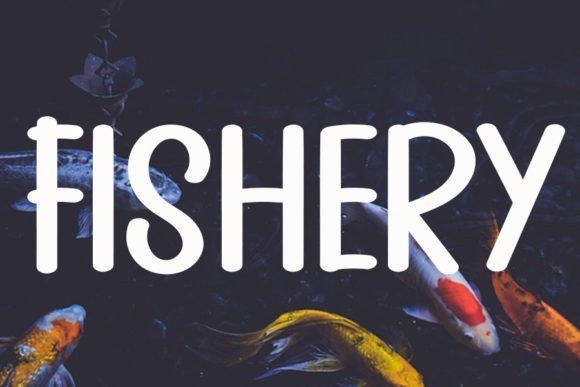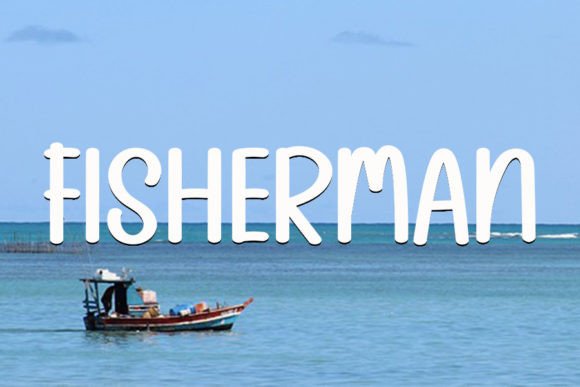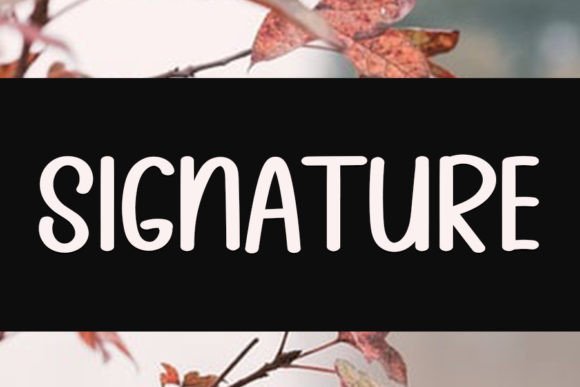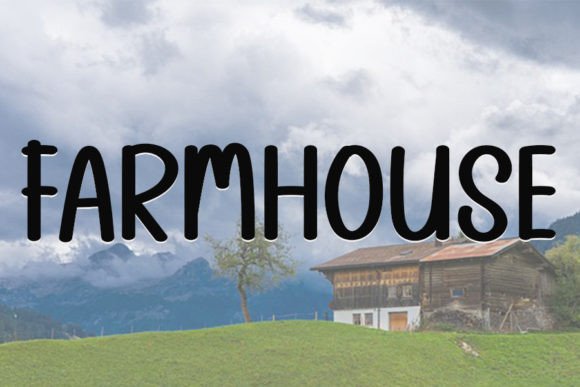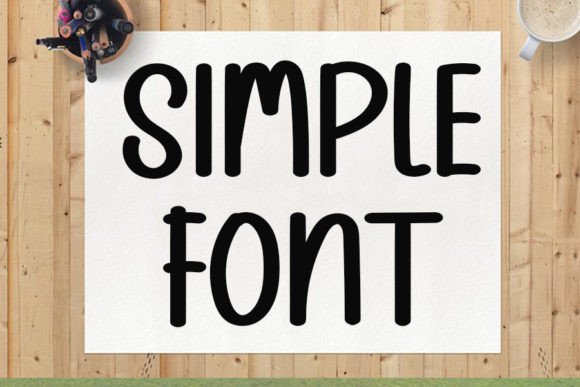
Hooked on the Perfect Font
There’s something magical about a well-designed project that makes you feel like you’re creating something truly special. The moment you click ‘save’ and step back to admire your handiwork, a sense of pride and satisfaction washes over you. But, let’s be honest, the right font can make all the difference.
That’s where Fishery Font comes in – a beautiful, modern handwritten font that’s perfect for adding a touch of elegance to your designs. With its spotless form and balanced lines, Fishery Font is designed to elevate your projects to the next level. Whether you’re a seasoned designer or just starting out, this font is a valuable addition to your toolkit.
Fishery Font Key Features
- Font Family: Fishery Font is a unique, custom-designed font family, ideal for creating visually appealing and engaging content.
- Character Set: The font includes a comprehensive set of characters, including uppercase and lowercase letters, numbers, and special characters.
- Unique Characteristics: Fishery Font features a distinctive, hand-drawn style with subtle texture and imperfections, adding a touch of personality to any design.
Fishery Font Review
As a designer, I was excited to dive into the world of Fishery Font, and overall, it’s a solid choice for any project. ✨ Here are some things that work well:
- Unique Water-Inspired Characters: The fish-inspired design elements add a touch of whimsy and playfulness to any text, making it perfect for branding and marketing materials.
- Legibility: Despite its quirky design, Fishery Font remains highly legible, even at smaller font sizes.
- Variety of Styles: Fishery Font comes in multiple styles, including bold, italic, and regular, giving you plenty of options for creating visually interesting typography.
However, there are some limitations to consider ⚠️:
- Limited Character Set: Fishery Font’s character set is limited, which may cause issues if you need to typeset complex text or use special characters.
- Not Suitable for Formal Text: Due to its playful design, Fishery Font may not be the best choice for formal documents, academic papers, or other serious content.
Overall, I think Fishery Font is a great choice for designers who want to add some personality to their projects. While it may not be suitable for every use case, it’s a fun and versatile font that can help you stand out from the crowd.
The Fishery Font is a versatile font that can be used in various design projects, such as:
- Logo design
- Menu boards
- Restaurant signage
- Food packaging
For best results, use Fishery Font in conjunction with other design elements that evoke a sense of freshness and aquatic themes.
Alternatives to Fishery Font for Designers
Fishery Font is a modern sans-serif font known for its clean lines and minimalistic feel. However, there are other alternatives that can provide similar aesthetic and functionality.
Open Sans is a popular sans-serif font that is highly legible and versatile. It is suitable for both digital and print media, making it an excellent choice for designers who need a clean and modern font. Compared to Fishery Font, Open Sans has a more geometric feel and is slightly more condensed, making it ideal for body text.
Lato is a sans-serif font that is highly customizable and adaptable to various design contexts. It has a modern feel with a subtle hint of elegance, making it suitable for branding, advertising, and editorial design. Compared to Fishery Font, Lato has a more rounded feel and is slightly more condensed, making it ideal for body text and headlines.
Q: What is the character set for Fishery Font?
The Fishery Font includes a wide range of characters, including Latin, Cyrillic, and Greek alphabets, as well as punctuation marks and symbols. The font also includes a comprehensive set of ligatures, swashes, and alternates to enhance your design’s typography.